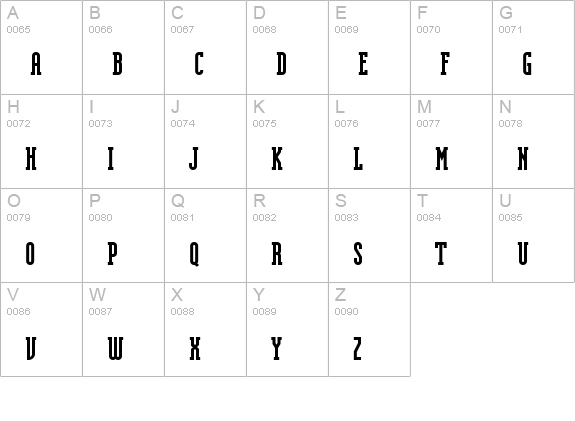
ModulaSerifBlack Regular Font Details
ModulaSerifBlack Regular is the standard, neutral variant in the ModulaSerifBlack typeface family \xE2\x80\x94 well suited to general body text, paragraphs, and standard typographic work.
ModulaSerifBlack Regular font is a modern and versatile typeface that exudes elegance and sophistication. Its bold and distinct letterforms make a bold statement, perfect for headlines, branding, and editorial designs. The strong serifs and clean lines of ModulaSerifBlack Regular font give it a timeless appeal that can elevate any project. What makes ModulaSerifBlack Regular font even more appealing is that it is available for free download at FontsMarket.com. This means that you can enjoy the high-quality design and craftsmanship of this font without any cost. Whether you are a designer looking to add a touch of sophistication to your work or a business owner wanting to create a strong visual identity, ModulaSerifBlack Regular font is the perfect choice. Download it today and elevate your designs with this stunning typeface.